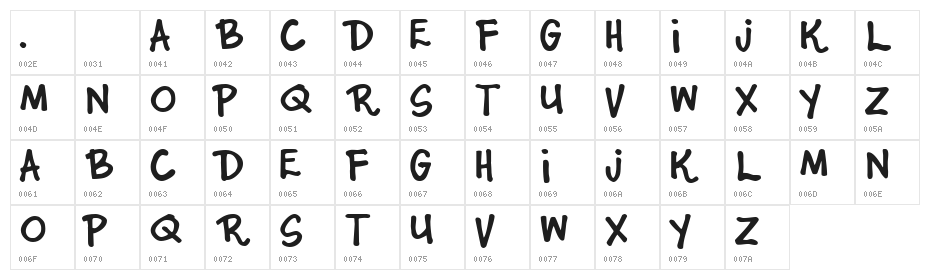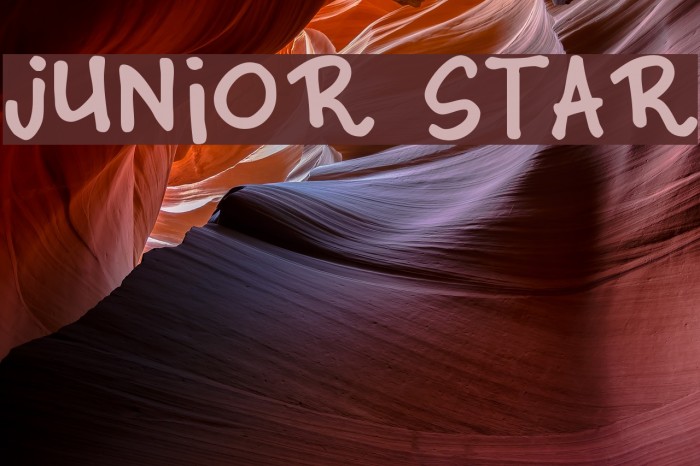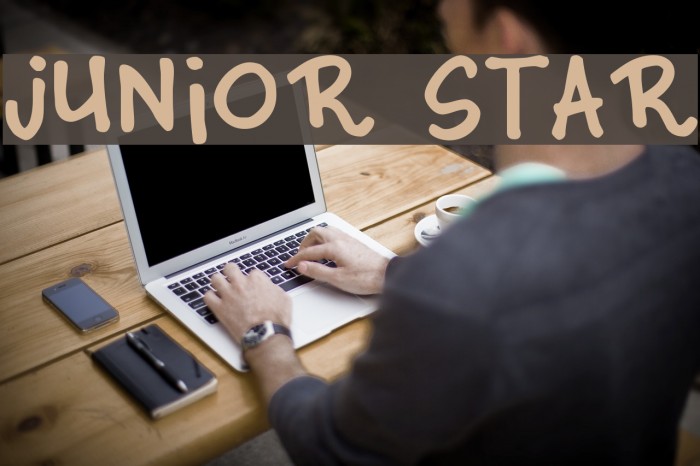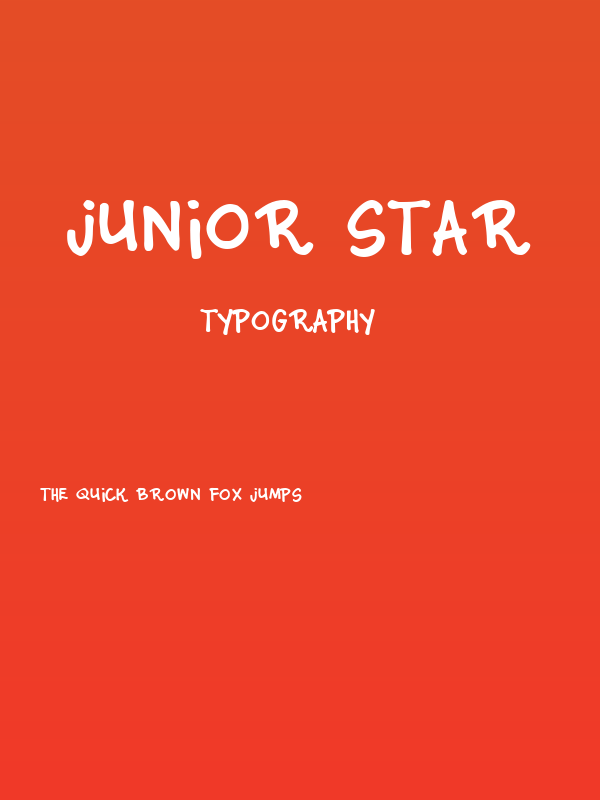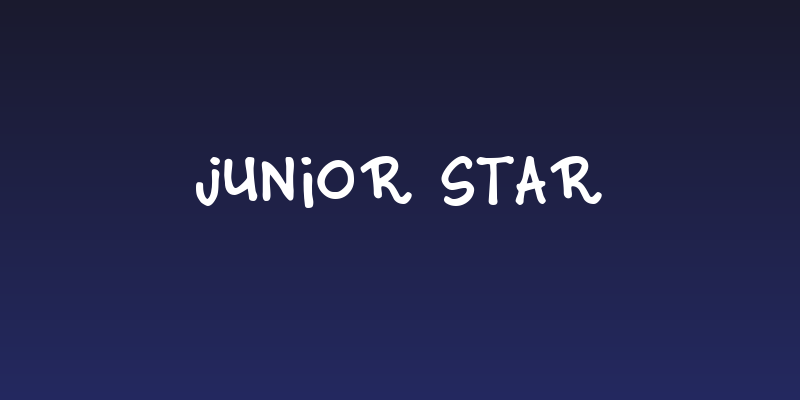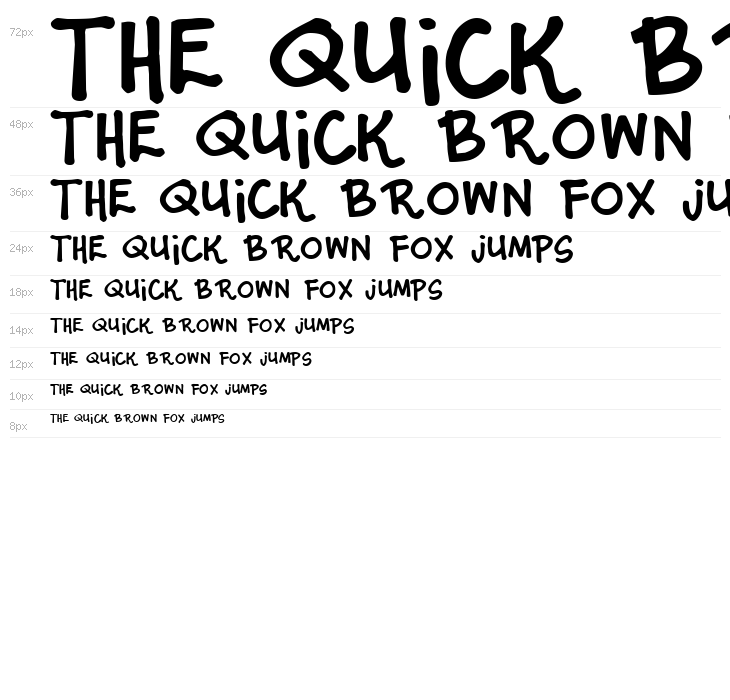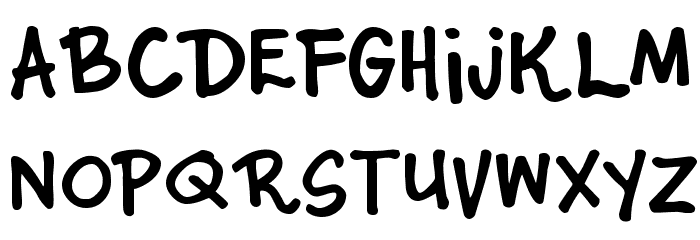
Junior Star Font
Junior Star Description
This playful and energetic font features a handwritten style with bold, rounded characters. The letters exhibit a casual, friendly appearance, making it ideal for projects that require a touch of whimsy and approachability. The uppercase and lowercase letters maintain a consistent style, with slightly exaggerated curves and a uniform stroke width that adds to its charm. The numbers and special characters are equally expressive, ensuring a cohesive look across all text elements. This font is perfect for children's books, playful branding, or any creative project that benefits from a lively and informal touch.
| Proposed Projects | Ideal for children's books, playful branding, greeting cards, and creative projects. |